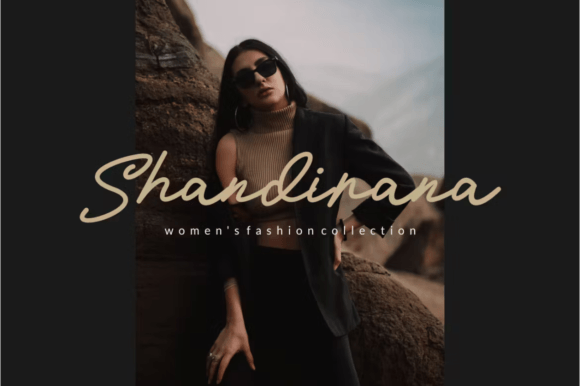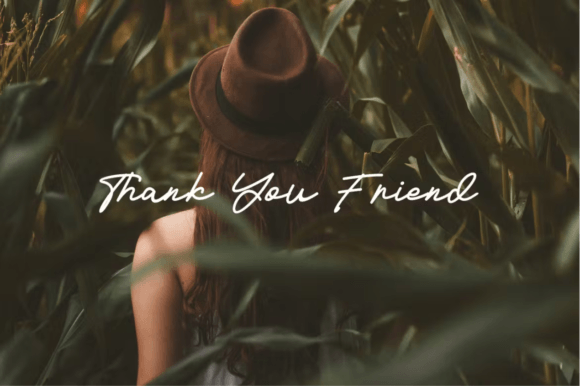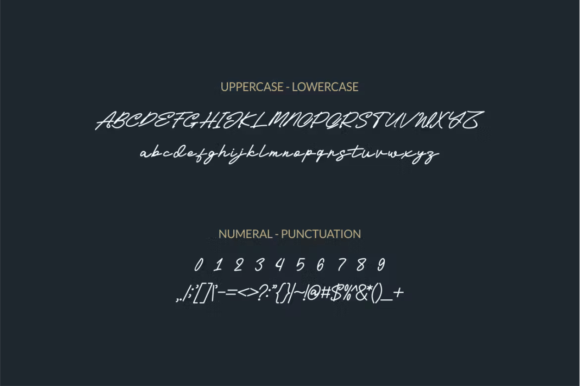
Introduction to Raundmind Font
Raundmind is a fun, handwritten font with a playful, messy look.
👤 Author Izdihaar_Studio
Its letters are uneven and have a casual, relaxed style, making it perfect for creative projects like greeting cards, posters, and social media graphics .